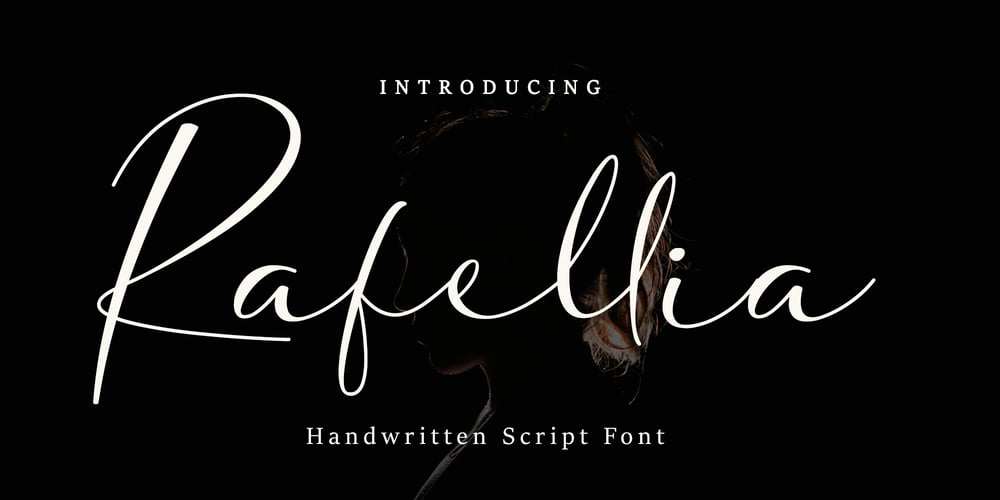
Rafellia Font Family was designed by Nasruni Fajarita and published by Tiny Hand Letter. Rafellia contains 1 styles and family package options. Rafellia is a handwritten script font, with an elegant and beautiful look. Rafellia will look perfect for elegant logos, wedding stationery, posters, quotes, short text, branding, web, graphic design, and more.This font is PUA encoded which means you can access all of the glyphs and swashes with ease!